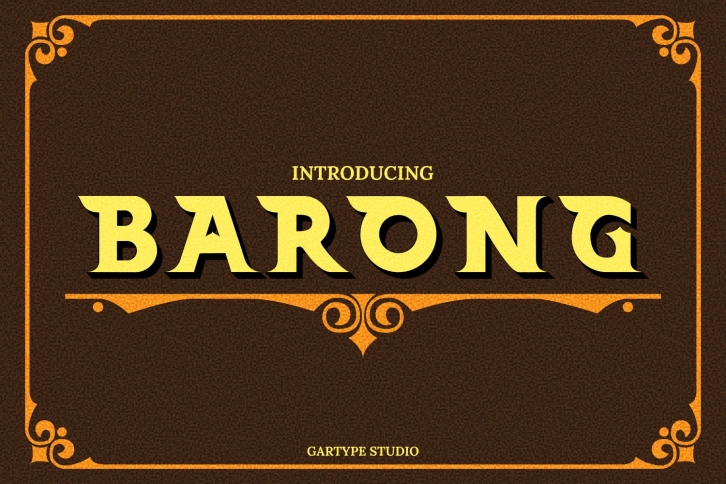
Barong Font and Bonus Web Font Download
Barong and Bonus Web is a great font that was designed by Gartype Studio. Imagine the amount of combinations you can create using this font! The archive is 3.11 MB and it was released on October 20, 2020. Barong and Bonus Web looks beautiful on wedding invitations, greeting cards, logos, posters, labels, t-shirt designs, logos, business cards and is perfect for use in ink or watercolor works, fashion, magazines, packaging and food menus, children's books and more!